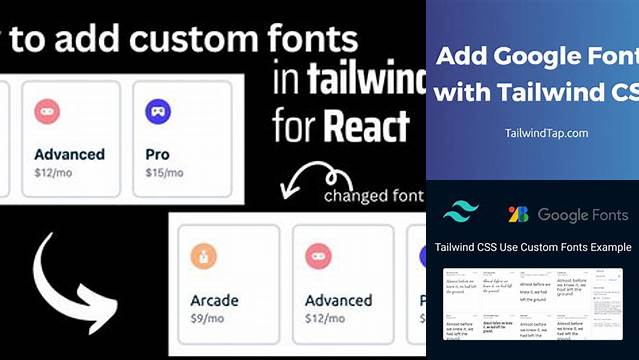
Add Google Fonts To Tailwind CSS: A Quick Guide
Hey everyone! Ever wondered how to spice up your Tailwind CSS projects with those beautiful Google Fonts? You're in the right place! Adding custom fonts can really elevate your website's look and feel, and it’s surprisingly easy to do with Tailwind CSS. This guide will walk you through the process step-by-step, so you can get your project looking exactly how you want it. We'll cover everything from installing the necessary packages to configuring your Tailwind CSS file, ensuring you have a smooth and seamless experience. So, let’s dive in and learn how to add Google Fonts to Tailwind CSS like a pro!
1. Why Use Google Fonts with Tailwind CSS?
So, why bother using Google Fonts with Tailwind CSS in the first place, guys? Well, using Google Fonts with Tailwind CSS is crucial for enhancing your website's typography and overall aesthetic. Google Fonts offers a vast library of free, high-quality fonts that can significantly improve your site's readability and visual appeal. With Tailwind CSS, which provides a utility-first approach to styling, integrating these fonts gives you precise control over your text styles, ensuring a consistent and polished look across your project. Custom fonts can really make your website stand out. Think about it – the right font can make your content more engaging and your website more professional. Plus, Google Fonts are optimized for web use, meaning they load quickly and look great on any device. By combining the power of Google Fonts with the flexibility of Tailwind CSS, you're setting yourself up for a website that not only looks fantastic but also performs well. Trust me, the difference a good font can make is huge! Let’s explore how to leverage this powerful combination to create stunning web designs. In this guide, we'll walk you through each step, making the process simple and straightforward. So, are you ready to transform your website's typography? Let's get started!
tag in the <head>
of your HTML, pointing to the output.css
file. With your project structure in place, you're setting the stage for a smooth integration of Google Fonts. Think of it like preparing your canvas before you start painting – a good setup makes the whole process much smoother and more enjoyable. Once your project is set up correctly, adding Google Fonts will be a breeze. So, let's move on to the next step and get those fonts ready to roll!
4. Installing the @tailwindcss/typography
Plugin
Alright, guys, let's talk about the @tailwindcss/typography
plugin. This plugin is a game-changer when it comes to styling your content with Tailwind CSS. Why? Because it provides a set of pre-designed typography styles that make your text look amazing straight out of the box. Installing the @tailwindcss/typography
plugin is straightforward and highly recommended for any project where you want beautiful, readable text. First off, you'll need to install it via npm (or yarn, if that's your jam). Just run npm install -D @tailwindcss/typography
in your terminal. The @tailwindcss/typography
plugin simplifies the process of styling your content with Tailwind CSS by providing a set of pre-designed typography styles. Once it's installed, you’ll need to add it to your tailwind.config.js
6. Finding the Right Font Pairings
Finding the right font pairings can feel like you're trying to solve a puzzle, but trust me, it's worth the effort! The right combination of fonts can really elevate your website's design and make your content more engaging. So, how do you find those perfect matches? A great place to start is by understanding the basic categories of fonts: serif, sans-serif, display, and handwriting. Serif fonts have those little